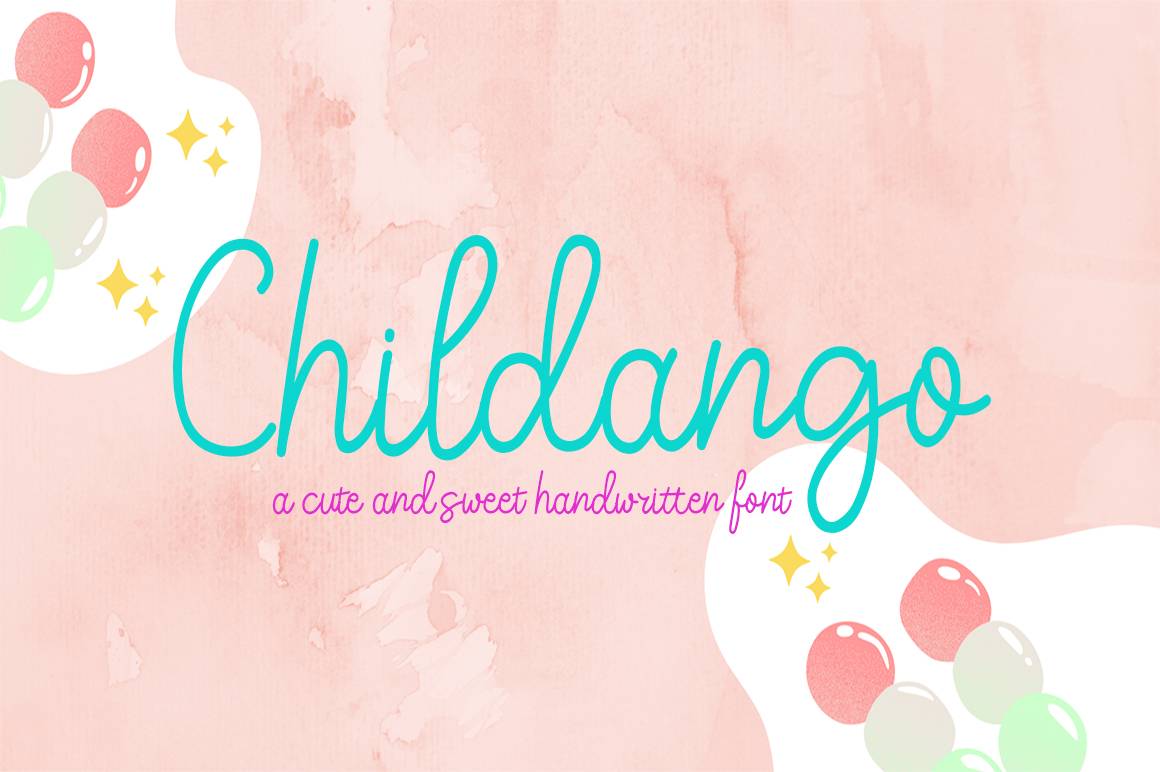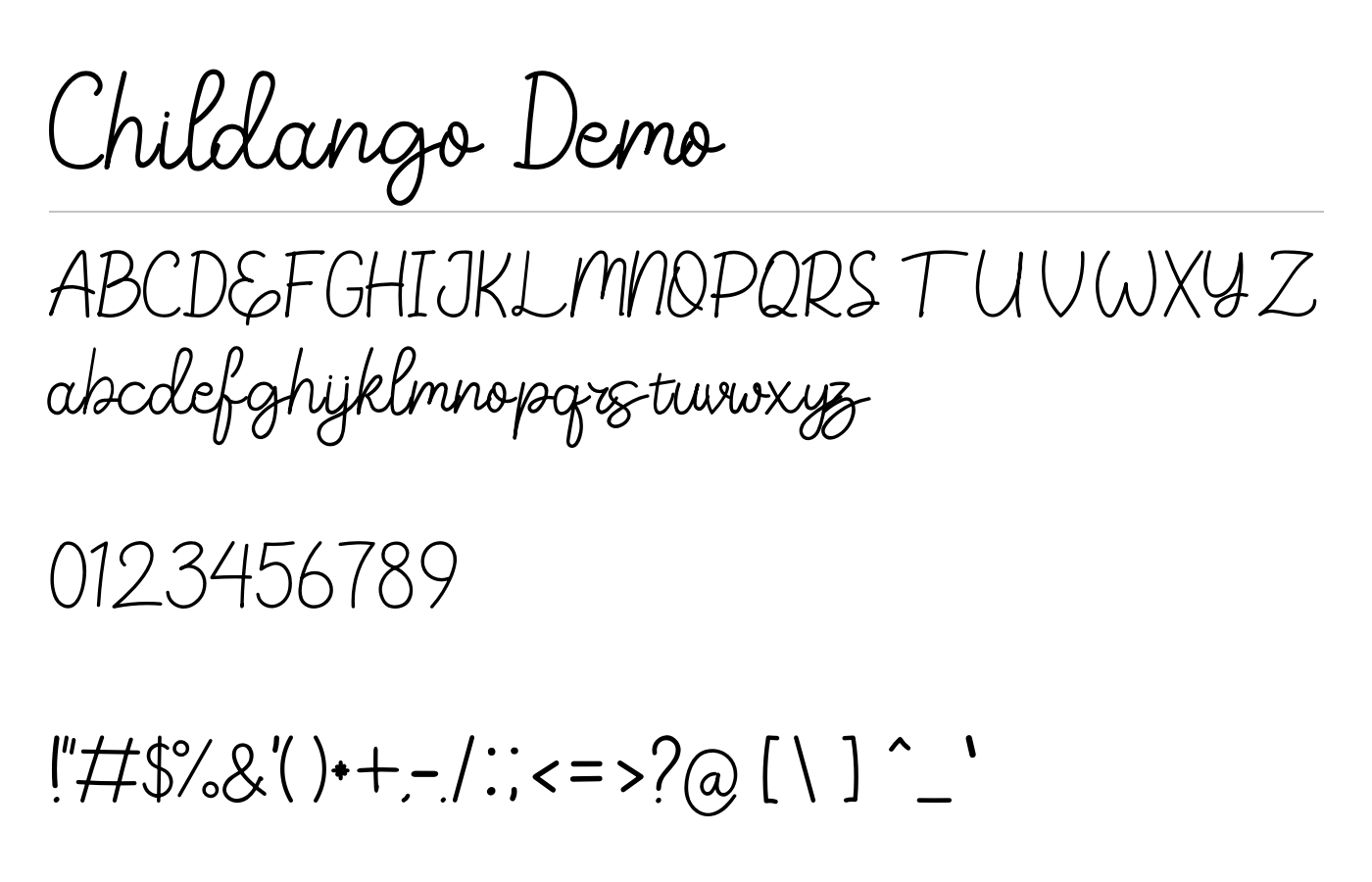
Childango is a playful, handwritten script font with a light, airy feel and smooth, flowing strokes. Its casual and friendly style makes it perfect for creative projects, children’s books, or branding that seeks an approachable and whimsical touch. With its clear, legible letterforms and charming character, it works well for headlines, invitations, and informal communications.
About Childango Font